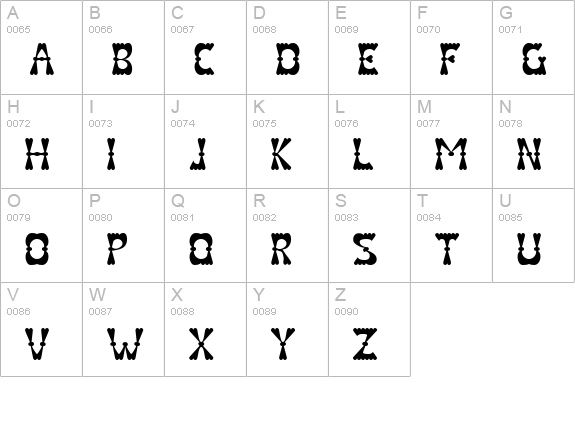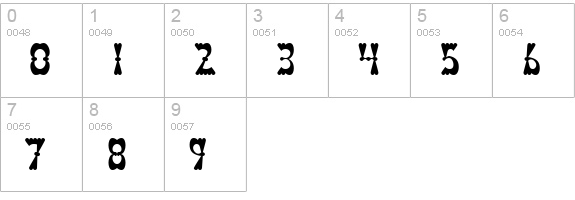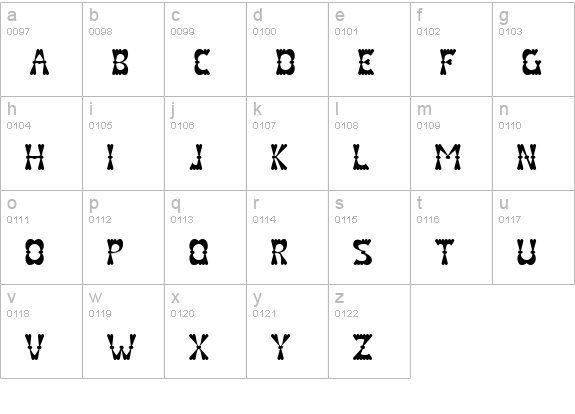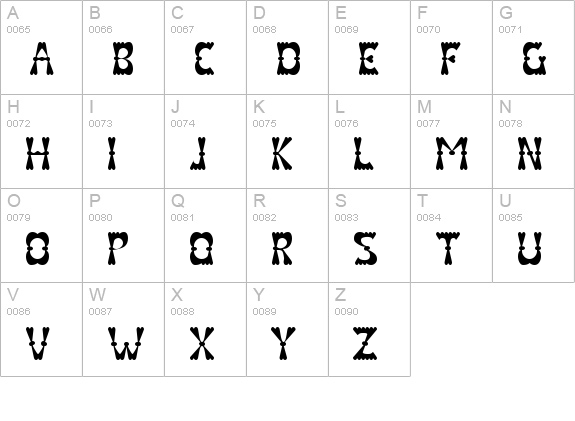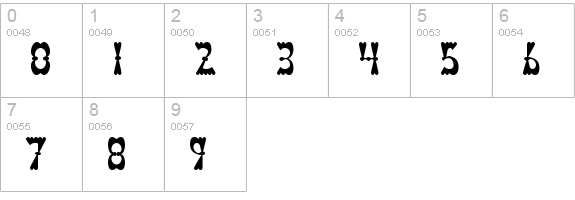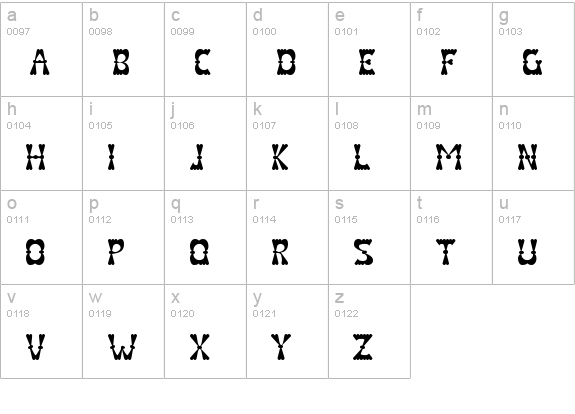
The Valenteena font is a stunning display typeface that adds a touch of elegance and sophistication to any design project. With its delicate and graceful letterforms, this font exudes a sense of charm and beauty that is perfect for invitations, branding, and other creative endeavors. What sets Valenteena apart is not just its exquisite design, but also the fact that it is available for free. Yes, you read that right! Valenteena is freely available to download at FontsMarket.com, making it accessible to designers, artists, and enthusiasts around the world. Whether you're working on a wedding invitation, a logo design, or a magazine layout, Valenteena will effortlessly elevate your project to new heights. Its flowing lines and intricate details create a sense of luxury and refinement, while still maintaining readability and legibility. The versatility of Valenteena is another aspect that makes it a must-have font in your collection. It can be used for both headings and body text, allowing you to create a cohesive and visually appealing design. Pair it with a simple sans-serif font for a modern twist, or combine it with a classic serif font for a timeless look. Valenteena is a true gem in the world of typography, and its availability as a free download makes it even more precious. So why wait? Head over to FontsMarket.com and add this exquisite font to your collection today. Unleash your creativity and let Valenteena bring your designs to life with its elegance and charm.